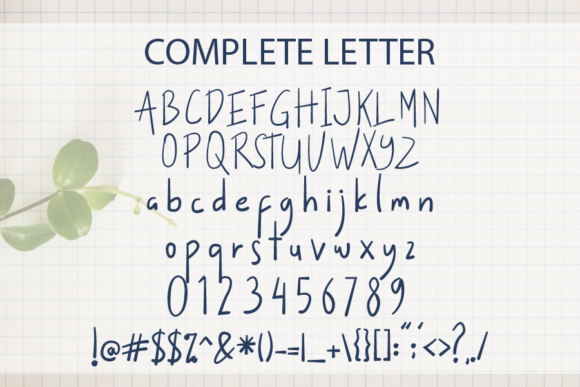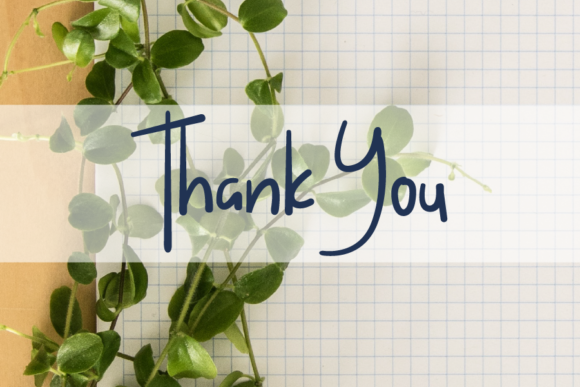
Introduction to Happy Sweet Font
Have you ever been working on a creative project and suddenly felt like your design just needed that perfect touch of personality? I’m sure many designers can relate to that moment when a unique font can make all the difference in bringing a design to life. For me, that moment often comes when I’m working on a new logo or branding project, and I need a font that exudes warmth and approachability.
That’s where Happy Sweet Font comes in – a delightful, handwritten font that’s sure to add a touch of whimsy to any design. With its clean, quirky lines and high-quality design, this font is the perfect resource for designers looking to add some personality to their work. Whether you’re working on a logo, social media graphics, or a crafty DIY project, Happy Sweet Font is a valuable addition to your design toolkit.
Key Features of Happy Sweet Font
- Unique, cursive design with a playful and whimsical feel
Honest Review: Happy Sweet Font
As a designer, I’m always on the lookout for high-quality design resources to elevate my creative projects. The Happy Sweet Font caught my eye with its playful and charming aesthetic, making it perfect for any project that needs a touch of whimsy.
What works well: ✨ The Happy Sweet Font is incredibly versatile and can be used for a wide range of applications, from logos and branding to invitations and social media graphics. The font is also available for free download, which is a major plus for designers on a budget.
- ✨ High-quality design with crisp lines and smooth curves
- ✨ Versatile and can be used for various creative projects
However, I did encounter a few limitations: ⚠️ The font doesn’t include any alternate glyphs or ligatures, which might be a problem for designers who require a more comprehensive font package. Additionally, the font’s transparent background can sometimes be difficult to work with, especially when using it for complex designs.
Overall, I’m impressed with the Happy Sweet Font and would definitely recommend it to fellow designers. Its unique style and high-quality design make it a valuable addition to any design arsenal.
Tips for Getting the Most Out of Happy Sweet Font
To get the most out of the Happy Sweet Font, experiment with different font sizes, colors, and combinations. You can also use the transparent background to create visually appealing designs.
The Happy Sweet Font is perfect for a variety of creative projects, including invitations, social media graphics, and advertising materials. Its high-quality design makes it a great choice for professional and personal projects alike.